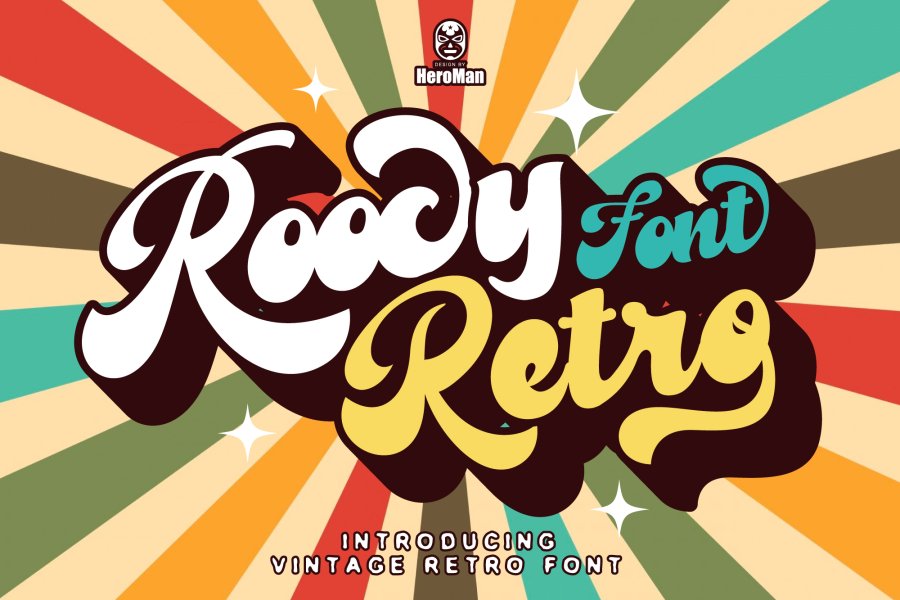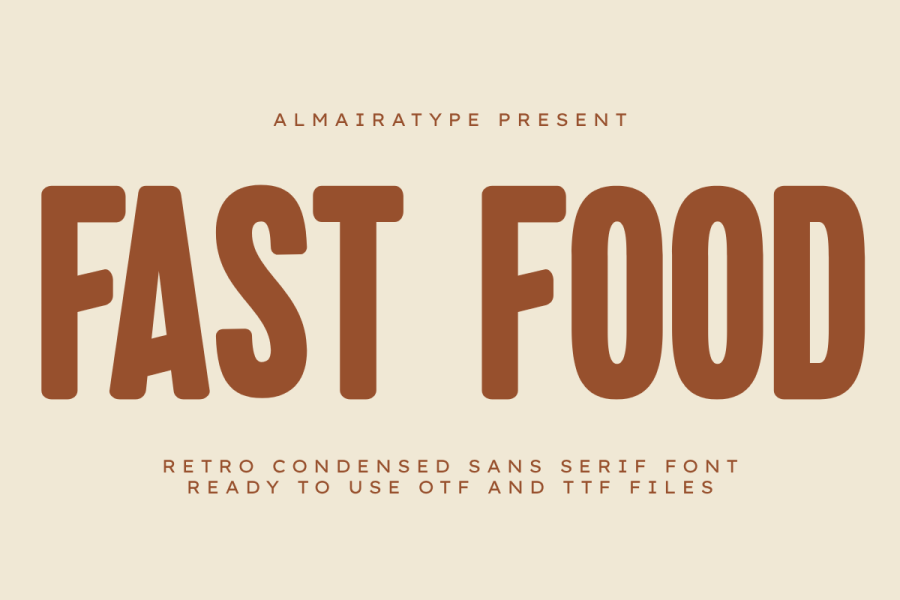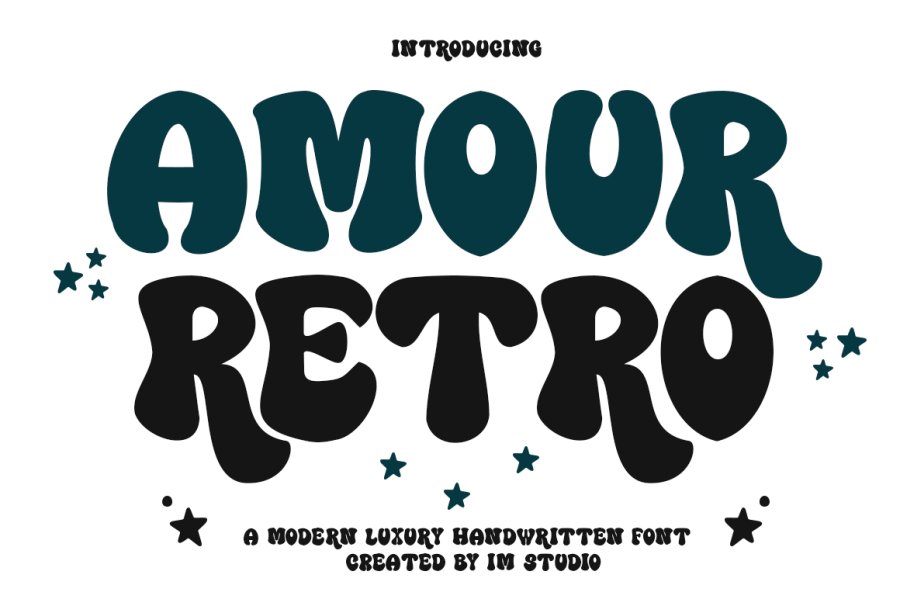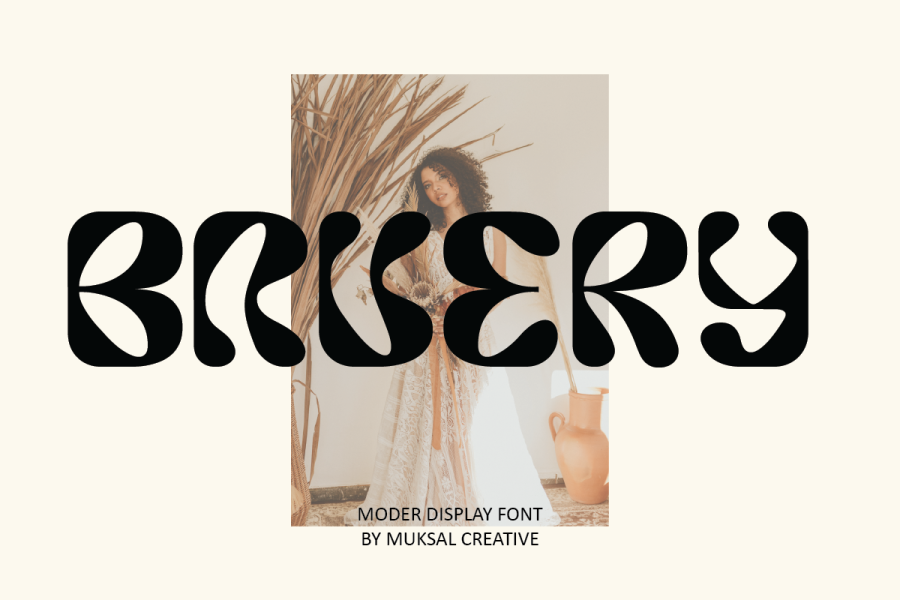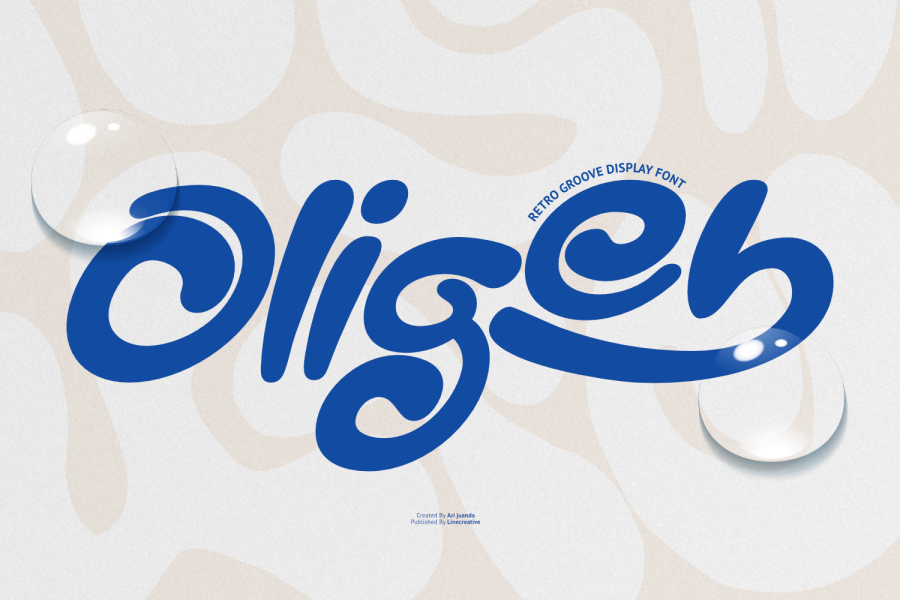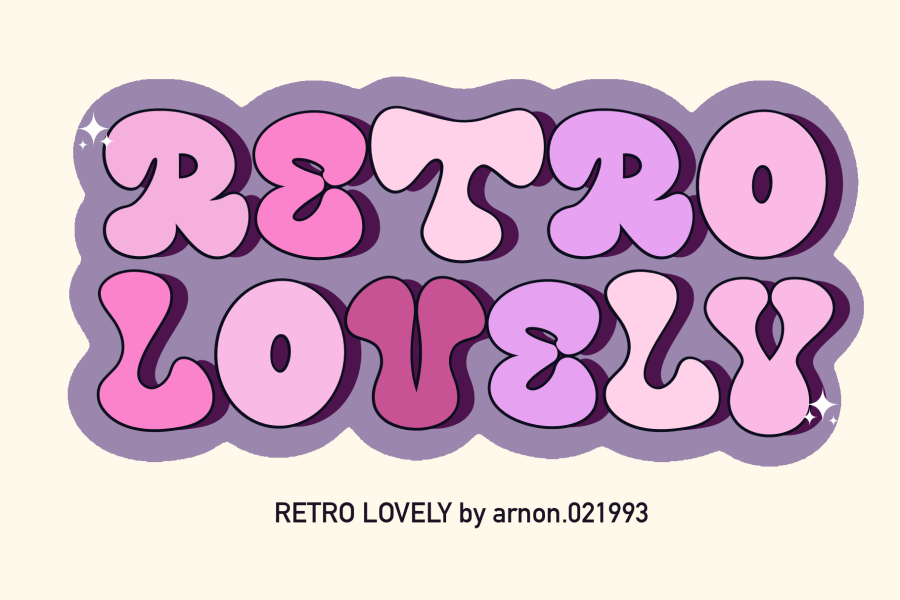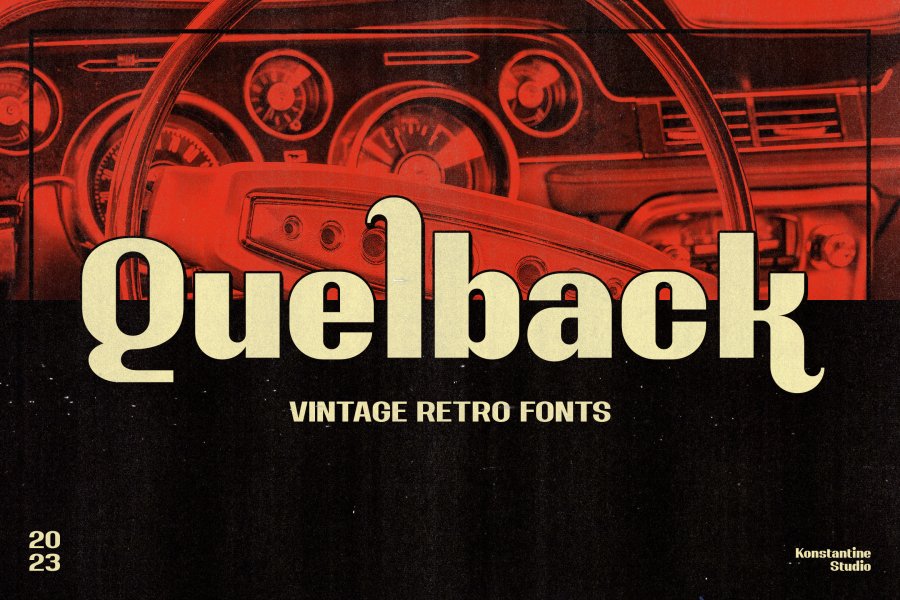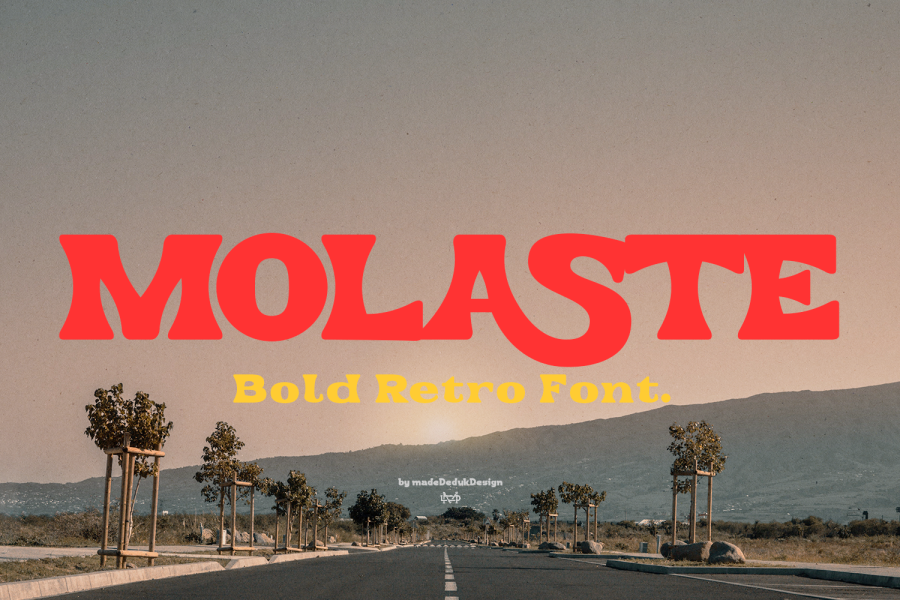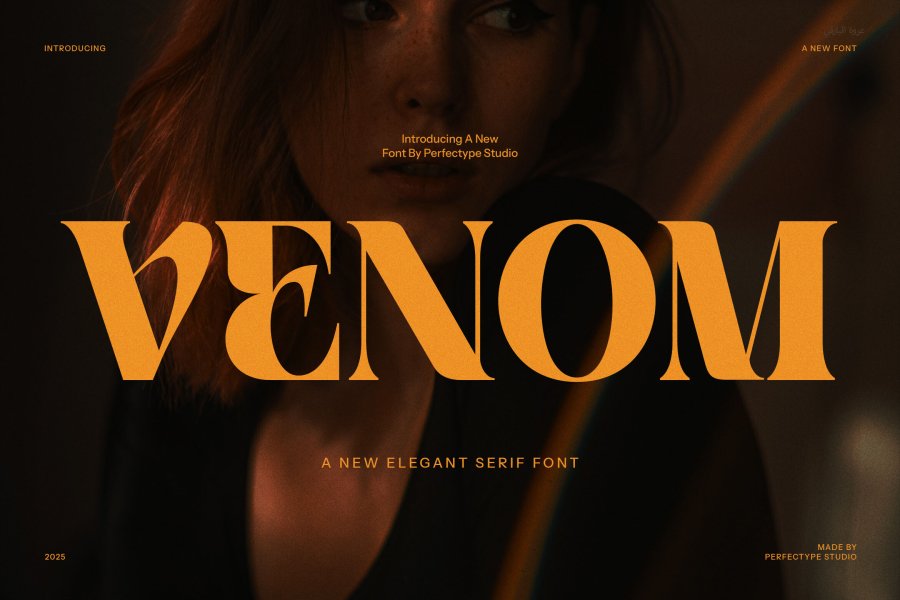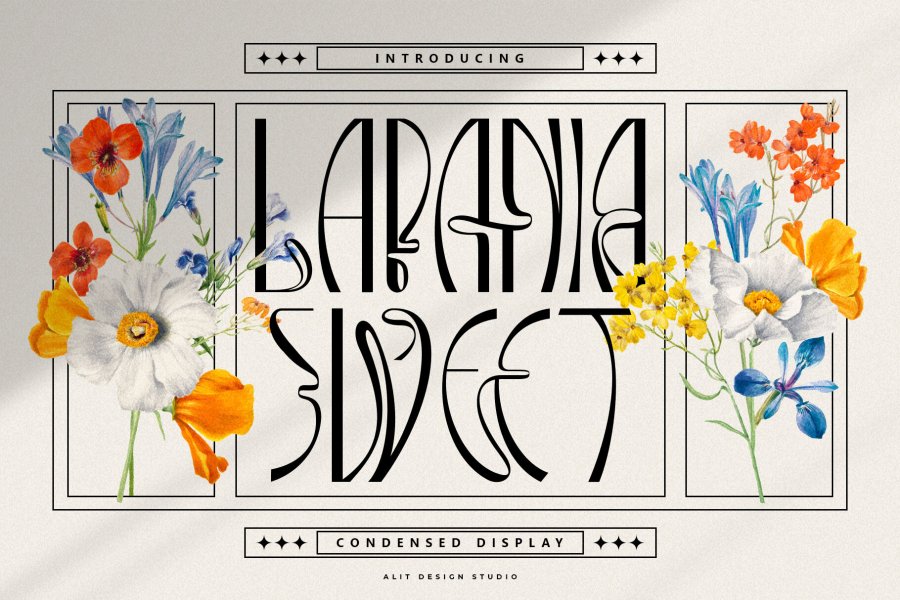
Groovy scripts, bold serifs, sans serifs, and display styles with 60s, 70s, and 80s influence
This collection brings together 88 retro fonts shaped by mid-century, 70s, and 80s design cues. Inside, you’ll find everything from bold serif and slab serif faces to condensed sans serifs, handwritten scripts, groovy display fonts, and a few font duos with matching styles. Many options include alternates, ligatures, swashes, multilingual support, or textured and layered effects, giving the set a broad range of vintage-inspired looks for branding, headlines, posters, logos, packaging, and creative layouts.
1. Roocy Retro Font
A modern retro display font with a clean, smooth style. PUA encoded for easy access to glyphs and swashes.
2. Fast Food Retro Condensed Font
A bold retro sans serif with warm 70s style and clean geometry. It offers strong readability and versatile vintage impact.
3. Amour Retro Graffiti Cartoon Font
A vibrant graffiti cartoon typeface with bold character and playful energy. Includes regular and extrude styles, full glyph sets, and PUA encoding.
4. Bavery Modern Display Font
A versatile display font with a clean modern edge. Ideal for editorial, branding, and packaging layouts.
5. Oligeb Retro Groove Display Font
Bold retro curves and playful swashes bring 70s charm to modern layouts. Includes uppercase, lowercase, numerals, punctuation, and multilingual support.
6. Retro Lovely Font
A vintage-inspired font with timeless charm and old-school style. It adds nostalgic character to posters, branding, and creative layouts.
7. Quelback Vintage Retro Font
A bold retro typeface inspired by 1970s graphic design. It brings nostalgic style and versatile character to modern layouts.
8. Molaste Retro Serif Font
An 80s-inspired serif font with a refined vintage feel. It delivers balanced rhythm for branding, logos, posters, and packaging.
9. Venom Elegant Serif Font
A refined serif typeface with modern contrast and graceful ligatures. It blends luxury styling with versatile readability.
10. Lapania Sweet Modern Sans Serif Font
A modern sans serif with ribbon-like curves and bohemian charm. Clean, elegant, and versatile for refined design.
11. Magic Blank Retro Font
Cute retro lettering with a cheerful accent. Includes versatile characters for stylish branding.
12. Picky Retro Serif Font
A bold display serif with vintage charm and playful nostalgia. Distinctive letterforms bring classic elegance to headlines and logos.
13. Viagiot Display Serif Font
Elegant bold serif letterforms bring a modern classic look. Distinctive shapes add style to headlines and logos.
14. Margin Serif Font
A classic serif font with a distinctive, elegant feel. Built for headlines and versatile text layouts across print and digital.
15. Hanky Retro Script Font
Bold retro script with smooth curves and a playful 3D shadow effect. Includes uppercase, lowercase, multilingual support, and PUA encoding.
16. Radnick Serif Font
A stylish serif with a clean, quirky character. Includes versatile glyphs and swashes in PUA encoding.
17. Modern Thinking Retro Sans Serif Font
Bold retro sans serif with chunky geometry and custom alternates. Clean outlines and strong legibility give it a vintage-modern edge.
18. Retro Layered Display Font
A bold layered font with a playful stacked effect and groovy 70s flair. It blends bubbly, hand-drawn letterforms with vibrant depth.
19. Sunday Railway Retro Display Font
A bold retro grotesque font with playful curves and heavy bottom weight. Includes PUA-encoded glyphs and swashes.
20. Moldity Retro Slab Serif Font
A bold retro slab serif with vintage charm and a fresh, polished feel. It adds classic character to logos, posters, and branding.
21. Ogalio Retro Automotive Sans Serif
Bold retro sans serif with classic motorsport character. Built for strong, vintage-inspired branding.
22. Skizovic Psychedelic Retro Font
A groovy liquid display font with smooth curves and bold psychedelic energy. It brings retro flair to logos, posters, and creative branding.
23. Grande Magical Retro Typeface
Bold sans lines meet flowing script in a charming retro style. Warm, playful, and modern, it adds handcrafted character.
24. Super Charm Retro Script Font Duo
A stylish font duo with groovy retro warmth and graceful modern flow. Includes a bold rounded display font and an elegant monoline script with swashes.
25. The Matcha Club Brush Font
Bold handwritten brush letters with cozy café charm and retro energy. Chunky strokes and playful flow create a warm, memorable look.
26. Gawen Round Groovy Retro Font
A bold retro font with bubbly curves and smooth rounded edges. It adds playful warmth, vintage charm, and strong readability.
27. Sunday Night Retro Font
A vintage-inspired display font with soft, rounded corners. It brings bold 60s, 70s, and 80s style to any design.